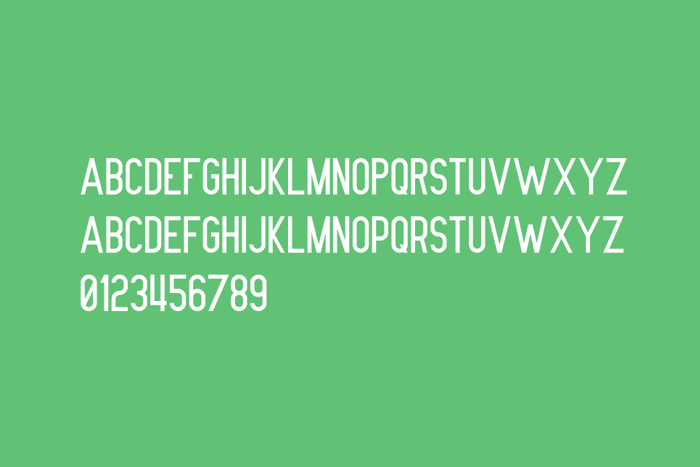
Nue Gothic Font
Nue Gothic is a modern gothic font in the tradition of Alternate Gothic2 BT, Oswald, and Bebas. Except it's not any of those.
Changes in V2.03, released March 30, 2018:
Extended mid-line on lowercase E, F
Narrowed W
Raised mid-line on 5, 6
Lowered mid-line on 9, lowercase P, R
Extended mid-lines on 3, &
Cut tail on &
Trimmed sides on #
Brackets extend below baseline
Added ogonek on E
Corrected proportions on ?
Added characters for *, German small sharp s
Re-proportioned all subscript and superscript numbers, letters, and punctuation
Narrowed the spacing on fractions